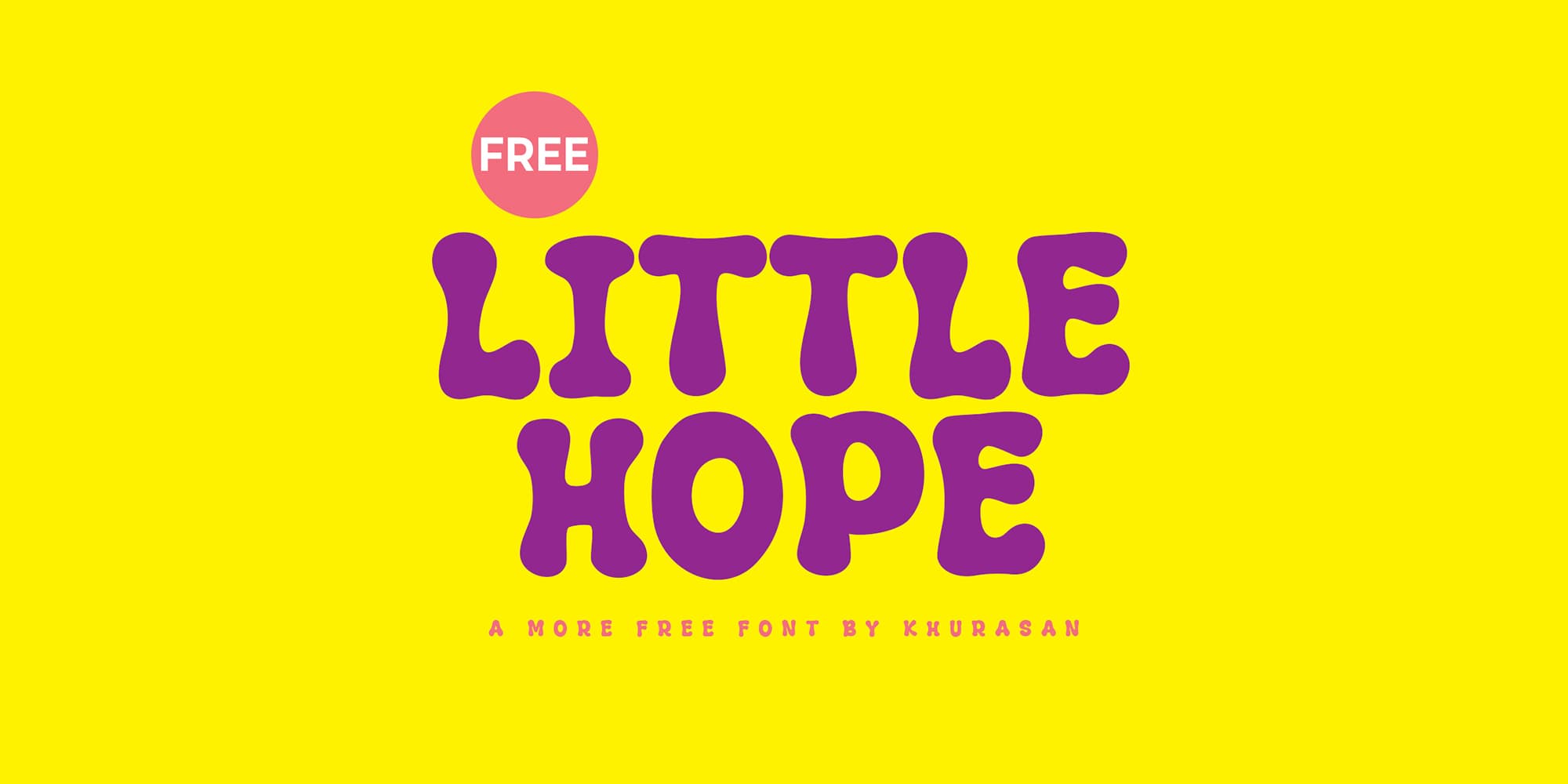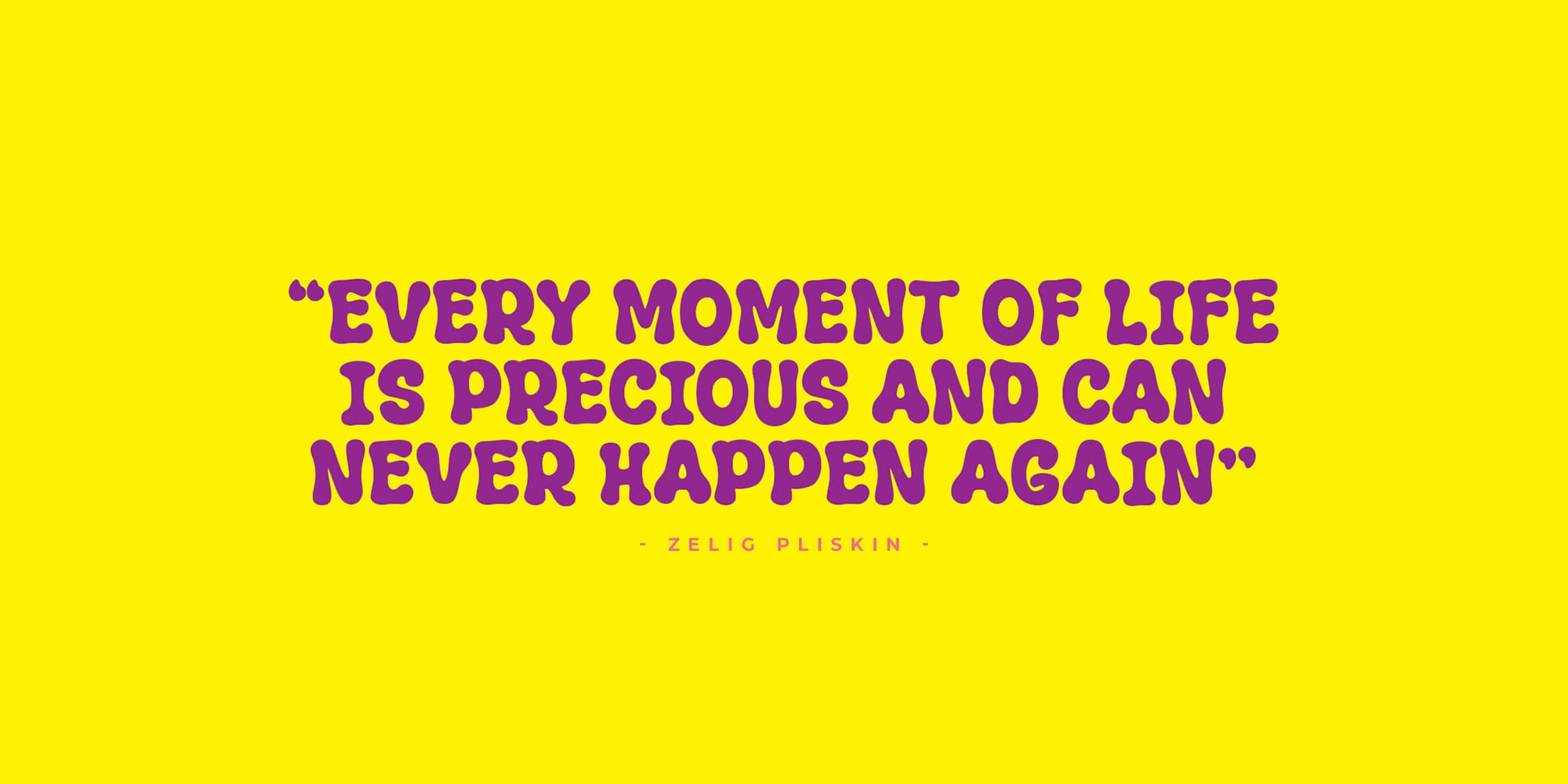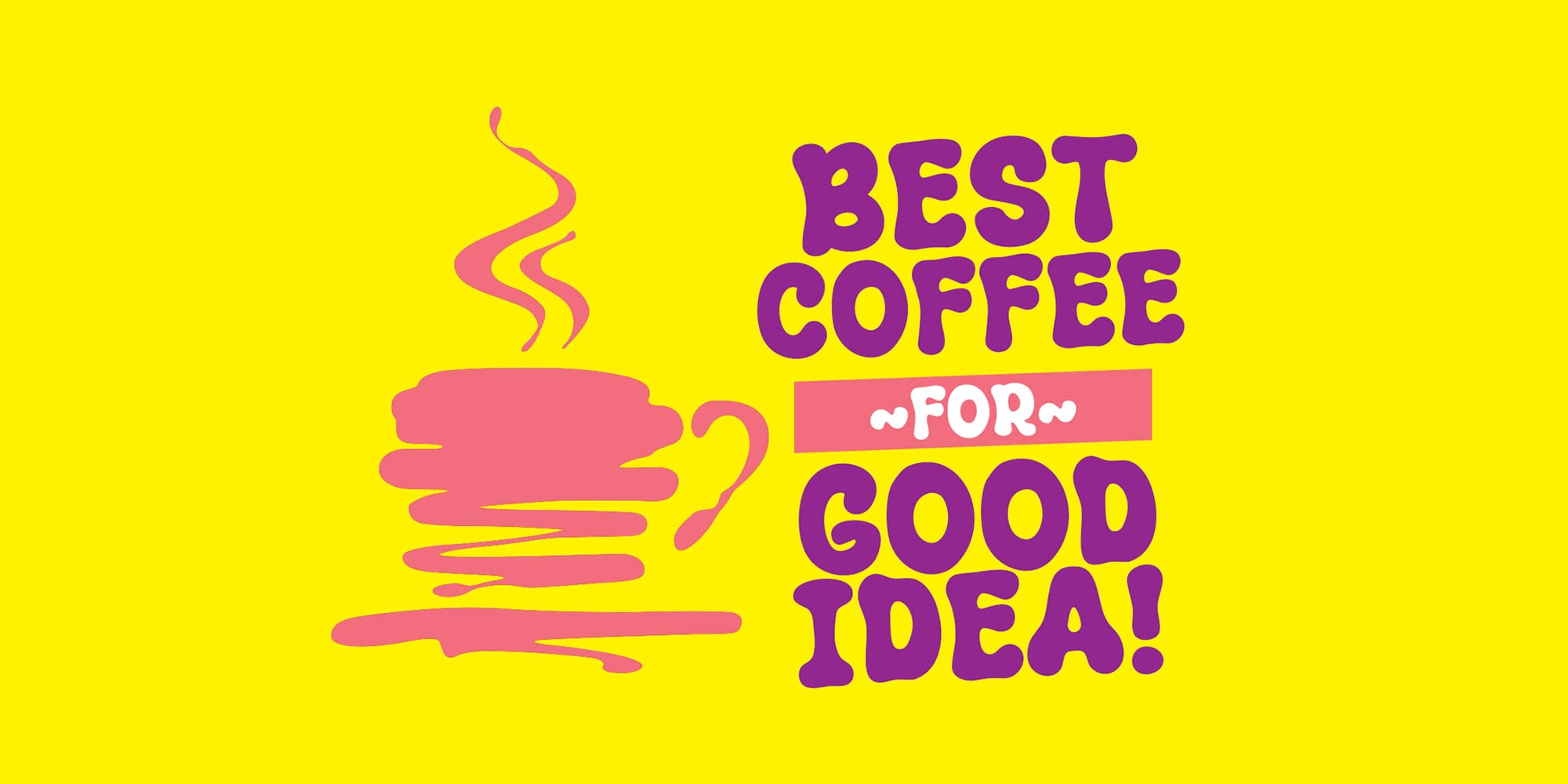
Little Hope Font
by Khurasan
Little Hope is a modern and cute display font perfect for posters, logos, magazines, book covers, banners, and many more! Get this amazing font, and use it to create lovely designs. It can easily be matched to an incredibly large set of projects, so add it to your creative ideas and notice how it makes them stand out!